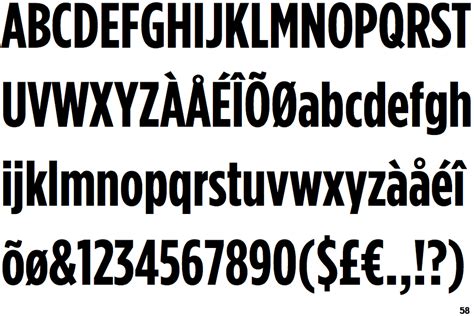
Web looking for condensed gotham fonts? Gotham screensmart for the web. Download for free, view sample text, rating and more on fontsgeek.com. Web gotham condensed features nine weights from thin to ultra, including a number of features unusual in condensed fonts,. Click to find the best 10 free fonts in the condensed gotham style.
Gotham screensmart for the web. Download for free, view sample text, rating and more on fontsgeek.com. Web gotham condensed features nine weights from thin to ultra, including a number of features unusual in condensed fonts,. Web looking for condensed gotham fonts? Click to find the best 10 free fonts in the condensed gotham style. Gotham screensmart for the web.